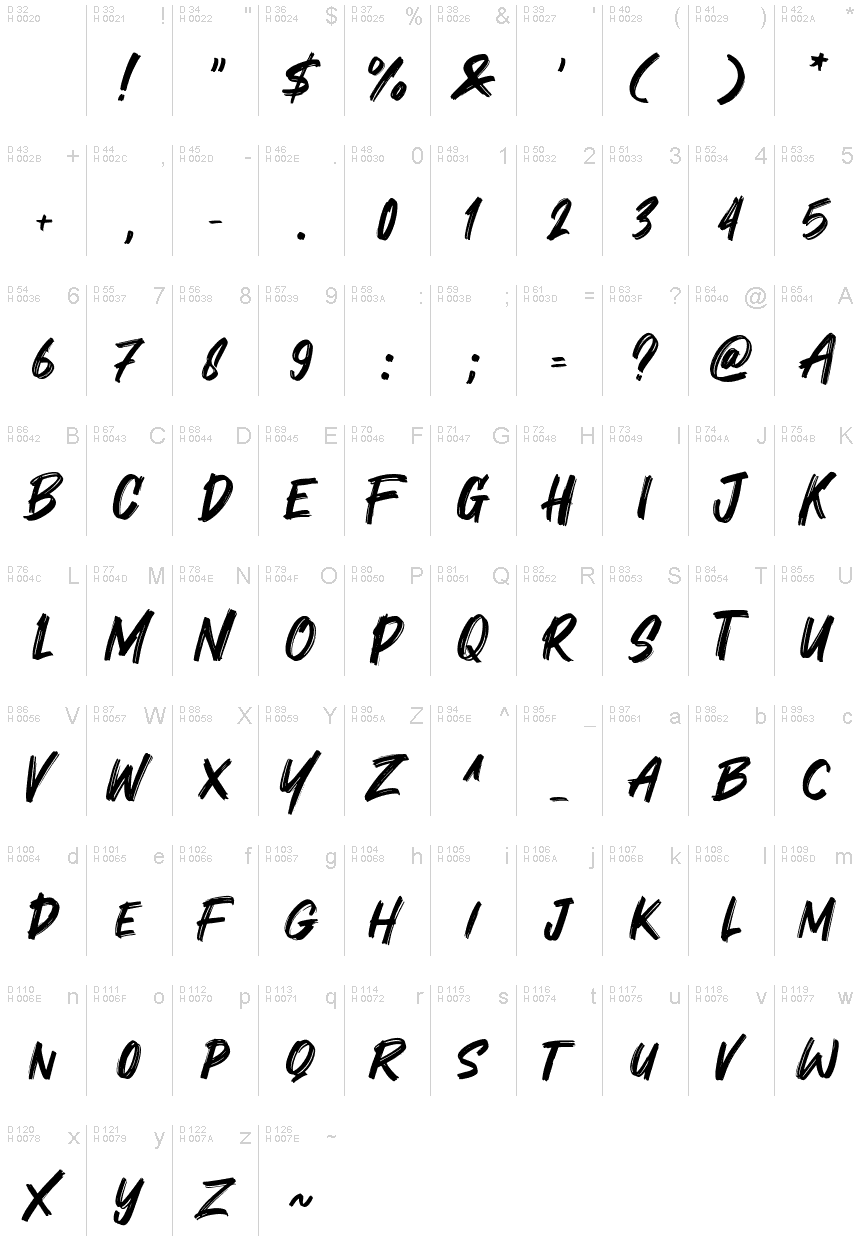
Cooldex
Cooldex, an enthralling semi-bold brush font designed by Khurasan, adds a captivating touch to any creative project. With its dynamic strokes and distinct character forms, this font is perfect for various projects. Bring life to your branding materials with Cooldex's contemporary vibe and bold presence. Its versatility makes it suitable for fashion magazines, trendy logos, album covers, or even eye-catching social media posts. Crafted with meticulous attention to detail, Cooldex effortlessly combines elegance with a touch of edginess. Embrace the power of this brush font to elevate your designs and leave a lasting impression on your audience.